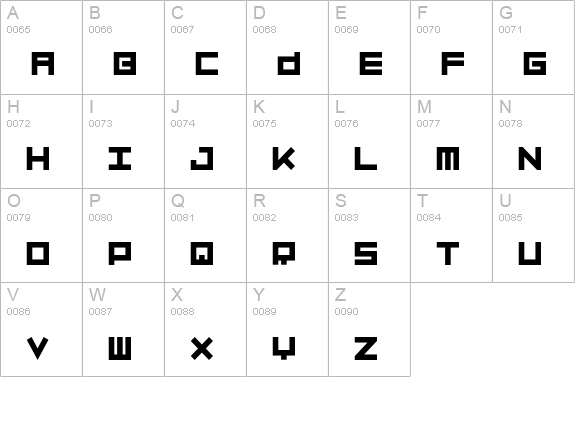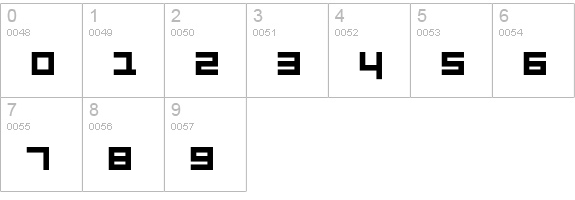
LuggageHeavy Font Details
LuggageHeavy font is a bold and impactful typeface that exudes strength and confidence. With its thick, heavy strokes and commanding presence, this font is perfect for making a statement in your designs. Whether you're creating a poster, logo, or headline, LuggageHeavy will grab the attention of your audience and leave a lasting impression. The best part is that LuggageHeavy font is available for free download at FontsMarket.com. You can easily add this powerful font to your collection and start using it in your projects right away. Don't miss out on this opportunity to enhance your designs with the bold and eye-catching LuggageHeavy font. Download it now and let your creativity shine!